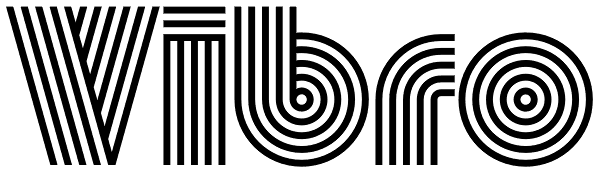
Vibro
Roll over, Lance Wyman, and tell Bridget Riley the news. Designed by an old hippy for maximum dazzle, Vibro is an ice cream headache of a typeface which exploits the principles of chromatic vibration to send streams of high voltage through the...